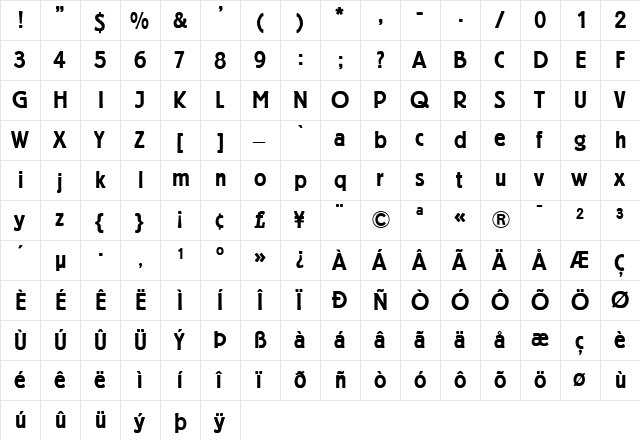
Berliner Grotesk Regular
Design Context for Berliner Grotesk Typeface
Berliner Grotesk has the quiet confidence of well-executed sans-serif typography: versatile, unobtrusive, and dependable at any size.
Font Pairing: Works well alongside a characterful serif or display font that can carry the expressive load while Berliner Grotesk handles the functional copy.
Pro Tip: Use Berliner Grotesk for UI labels, navigation, and short-form body copy where clean legibility is the priority.